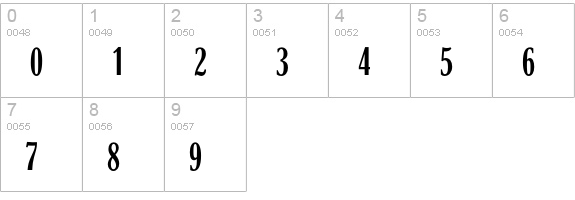
GlobeExCondL is a modern and versatile font that brings a touch of sophistication to any design project. With its sleek and streamlined appearance, this font is perfect for creating a contemporary look in both print and digital media. Its condensed style allows for efficient use of space while maintaining readability and visual appeal. What sets GlobeExCondL apart is that it is available for free download at FontsMarket.com. This means that you can easily access this high-quality font without any cost, making it a valuable addition to your font library. Whether you're working on a branding project, editorial design, or web graphics, GlobeExCondL offers a clean and professional aesthetic that will elevate your work to the next level. Don't miss out on the opportunity to enhance your designs with GlobeExCondL. Download it for free today at FontsMarket.com and start creating stunning visuals that stand out from the crowd.